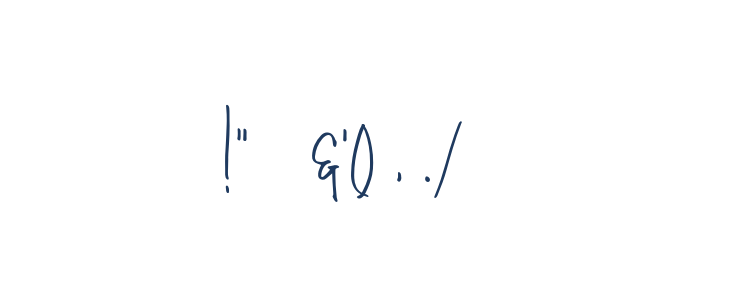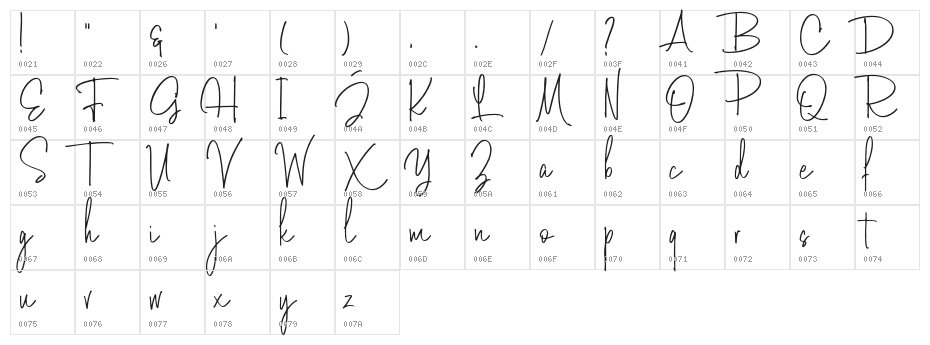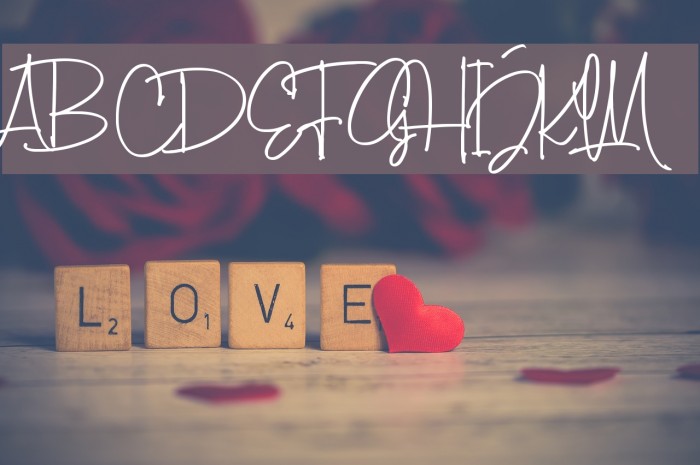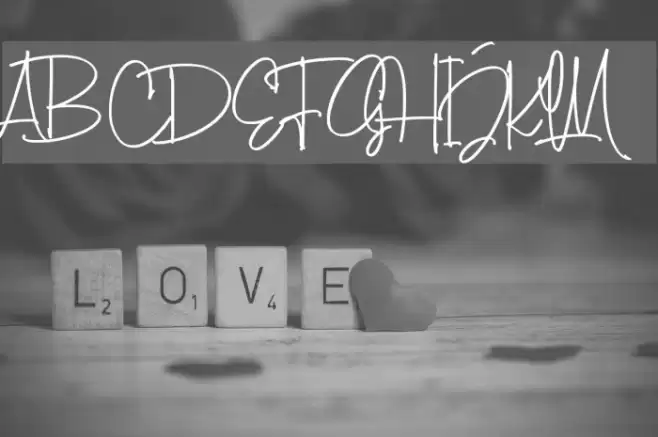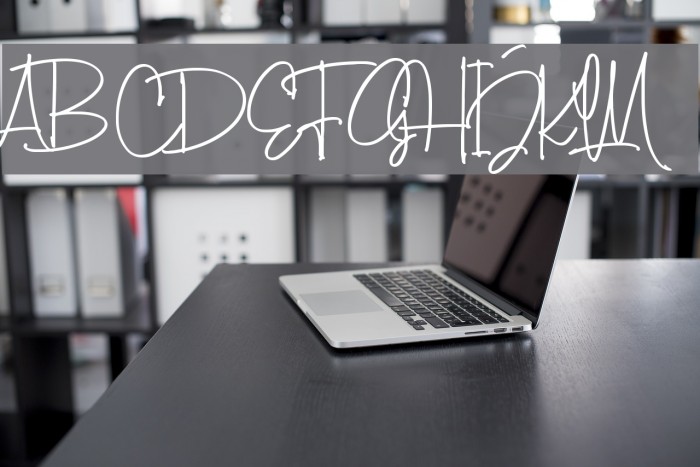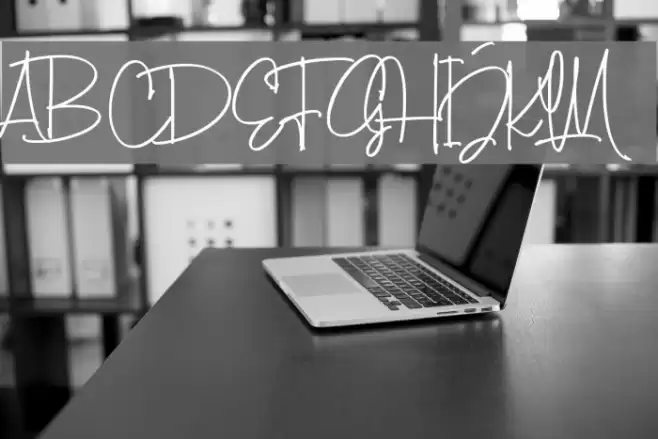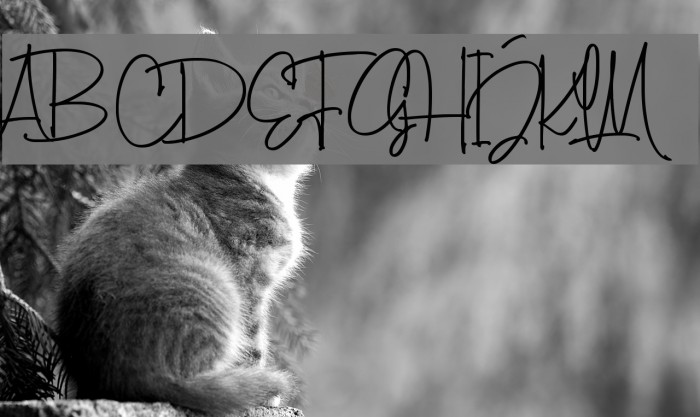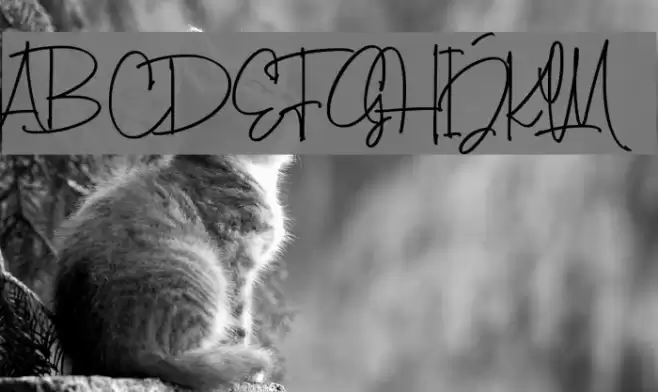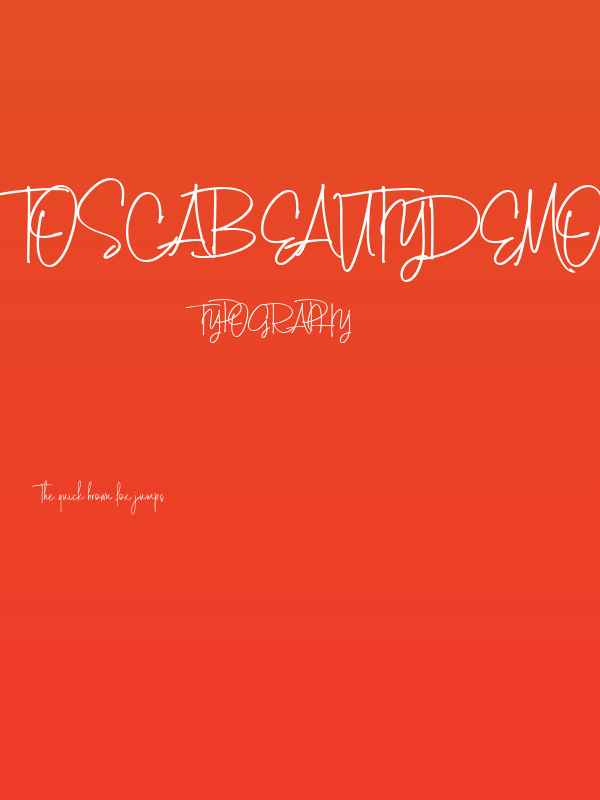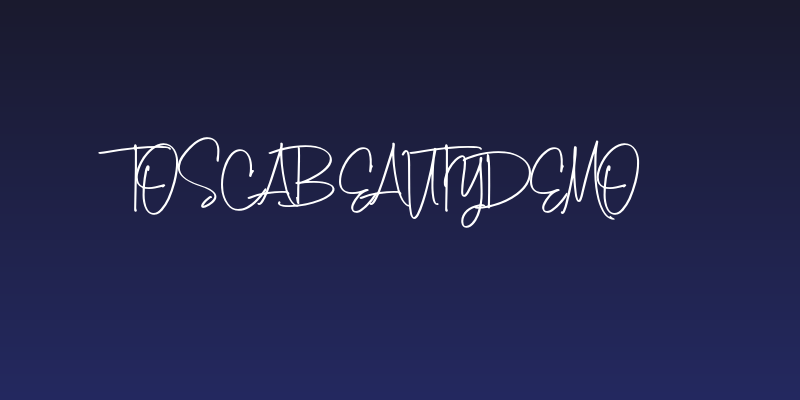
ToscaBeautyDemo Font
ToscaBeautyDemo Description
This font features a dynamic and expressive handwritten style, characterized by its fluid and interconnected letterforms. The uppercase letters are tall and slender, with a playful yet elegant flair, while the lowercase letters maintain a consistent flow with a slightly more compact form. The strokes are smooth and continuous, giving the font a sense of movement and energy. The special characters are uniquely styled to match the overall aesthetic, adding a touch of creativity and personality. This font's design is both modern and artistic, making it suitable for a variety of creative applications.
| Proposed Projects | Ideal for branding, invitations, greeting cards, and artistic projects that require a personal touch. |